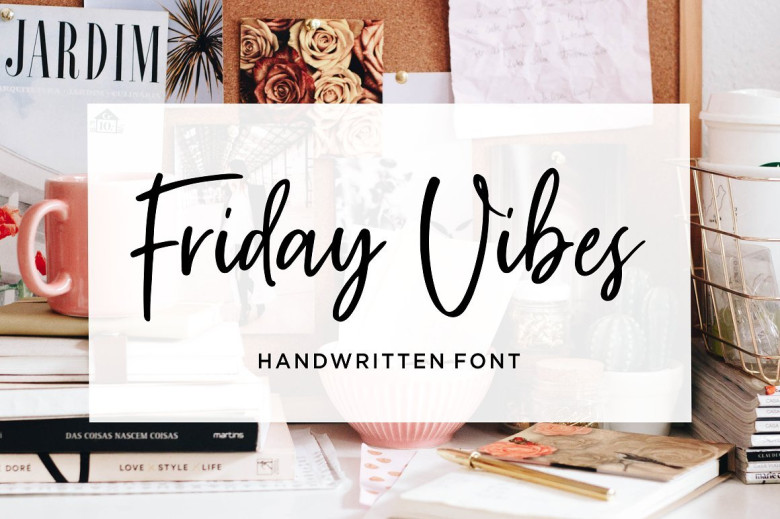
Friday Vibes Handwritten Font
Modennta – is a modern and clean handwriting script font, is a modern calligraphy font with the current handwriting style. It is designed and shared by Sronstudio. Friday Vibes Handwritten Font is perfect for many different project such as logos & branding, invitation, stationery, wedding designs, social media posts, advertisements, product packaging, product designs, label, photography, watermark, special events or anything.